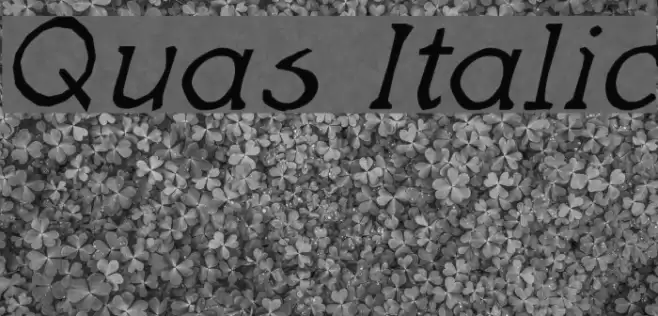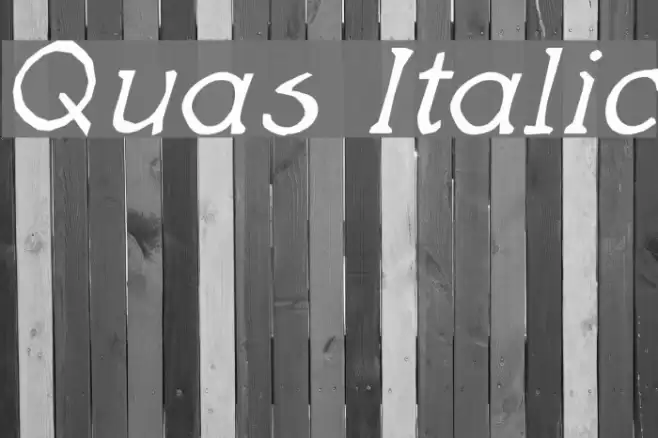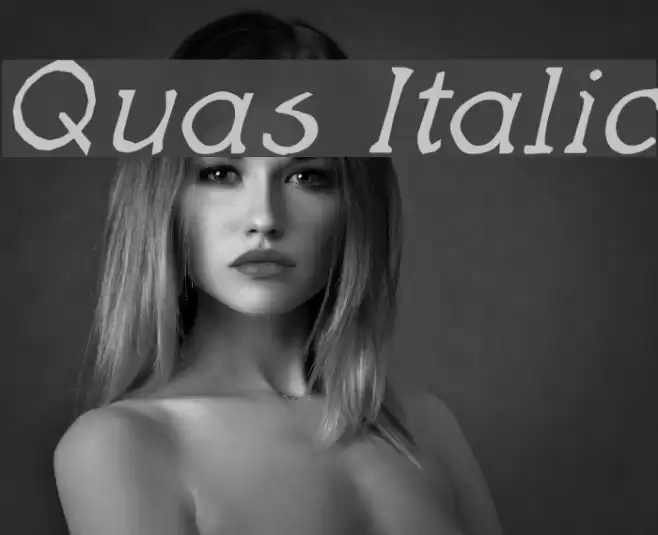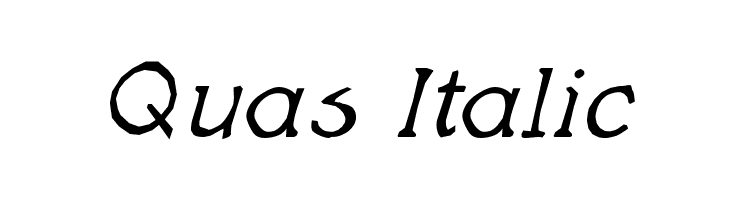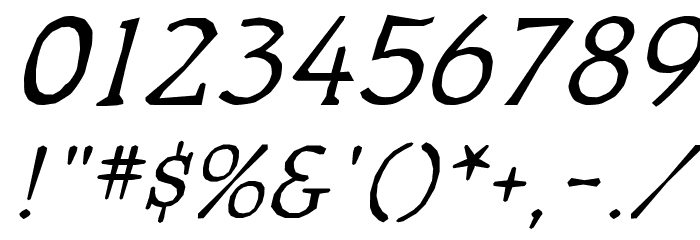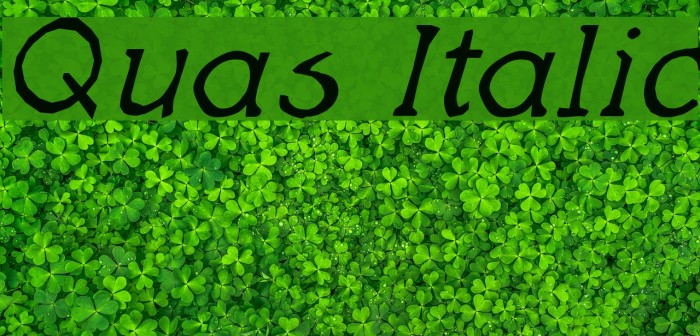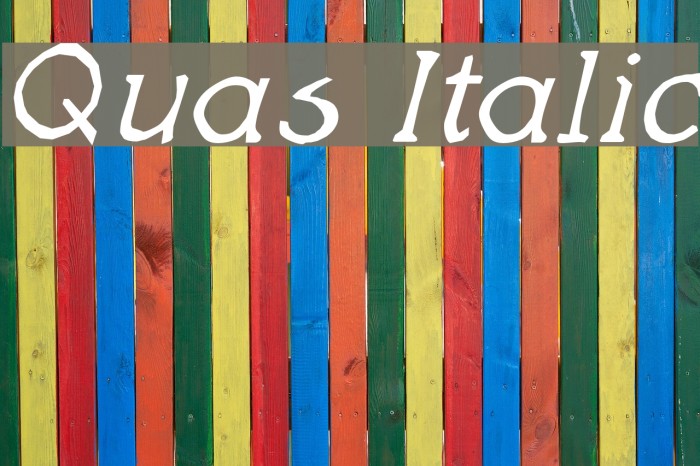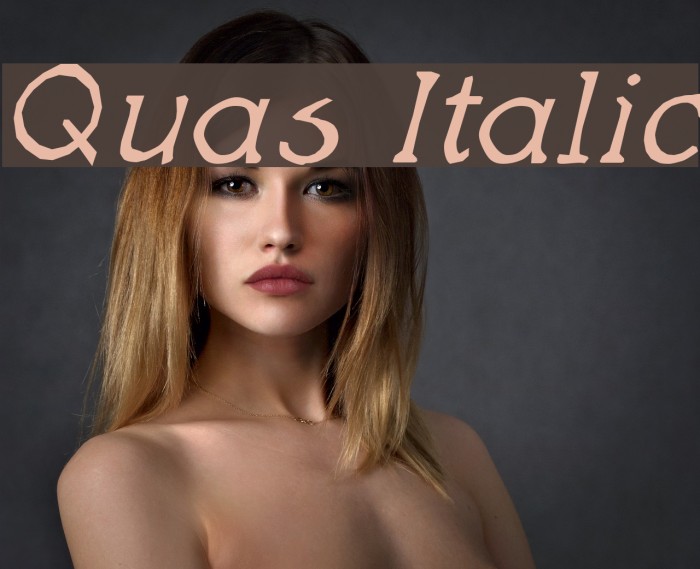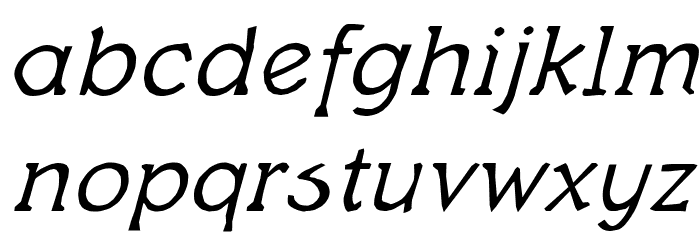
Quas Italic Font
Quas Italic Description
This font features a dynamic and elegant italic style, characterized by its fluid and slightly slanted letterforms. The strokes are smooth and have a moderate contrast, giving it a sophisticated yet approachable appearance. The uppercase letters are tall and slightly narrow, while the lowercase letters maintain a consistent flow, enhancing readability. The numerals are clear and distinct, with a slight slant that matches the overall style. Special characters are well-integrated, maintaining the font's cohesive look. This font's design is versatile, making it suitable for various applications where a touch of elegance is desired.
A dynamic and elegant italic font with smooth, slightly slanted letterforms from Uncategorized fonts.
- Overall Style: Elegant